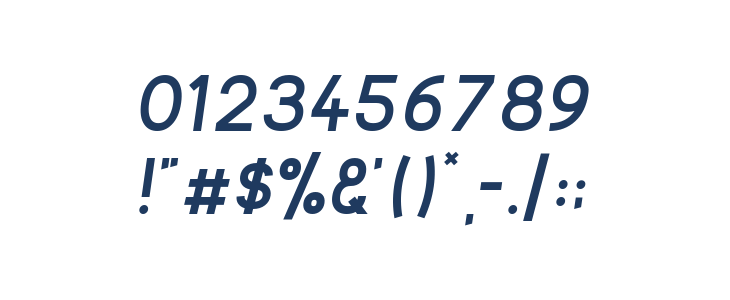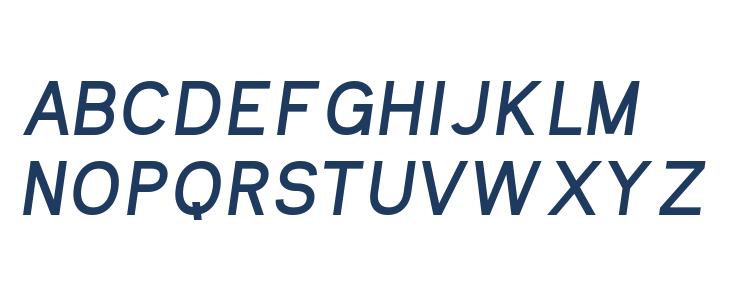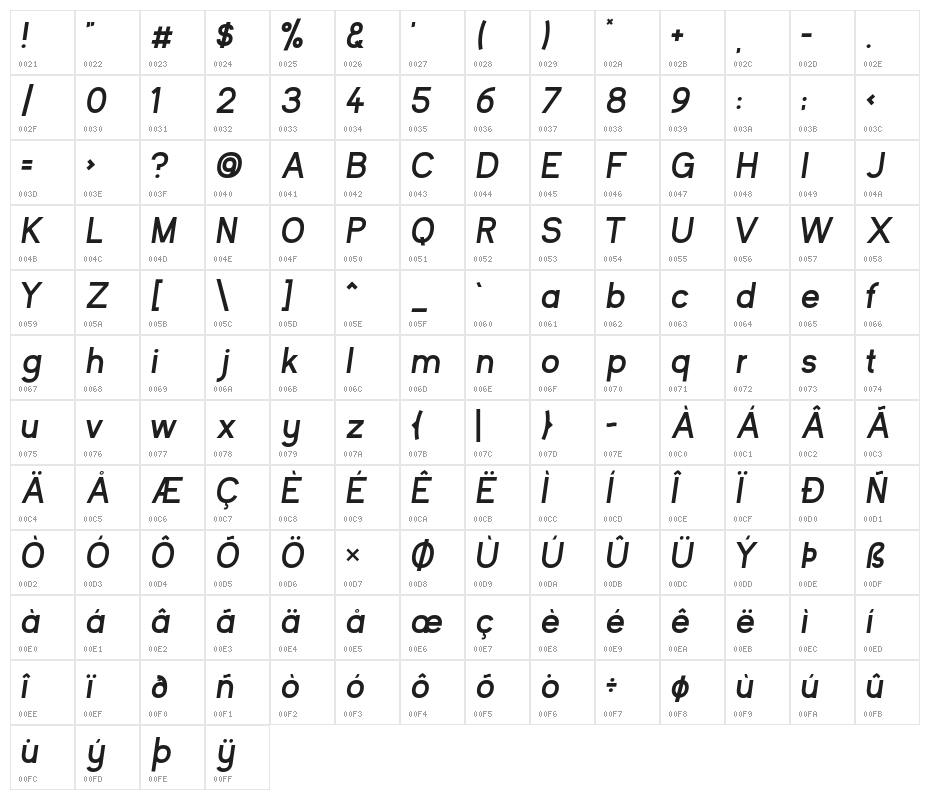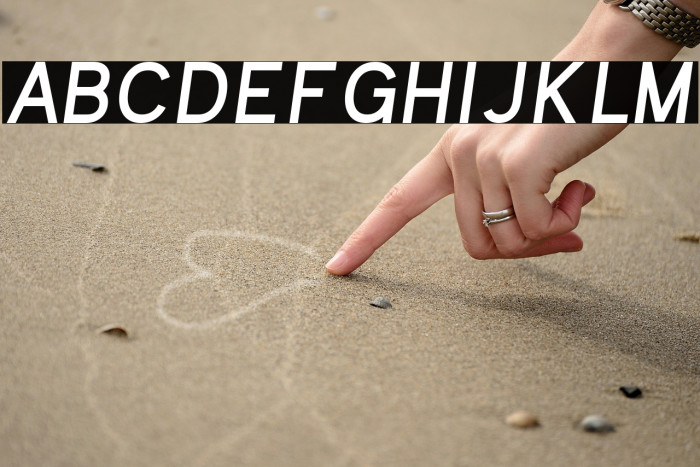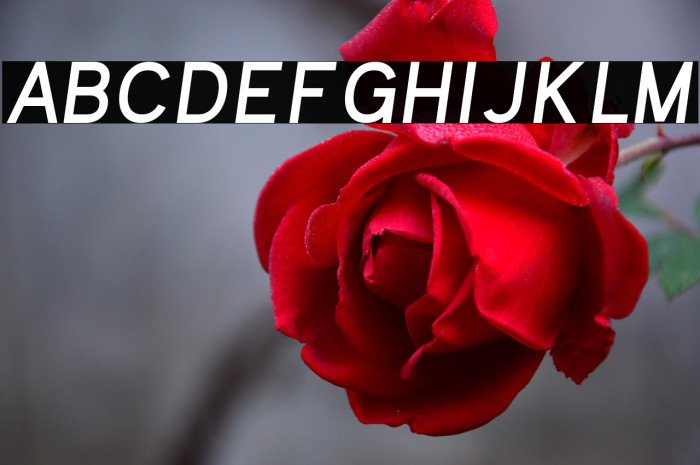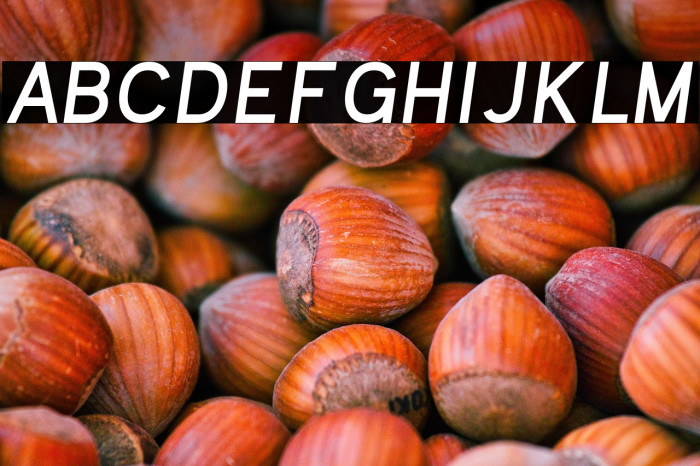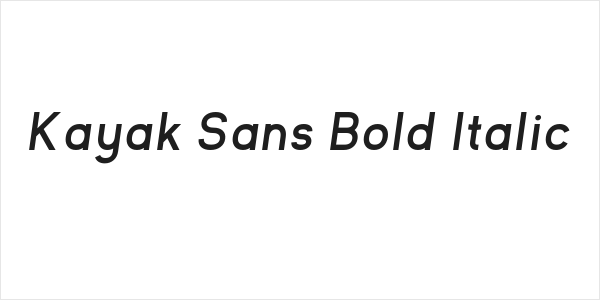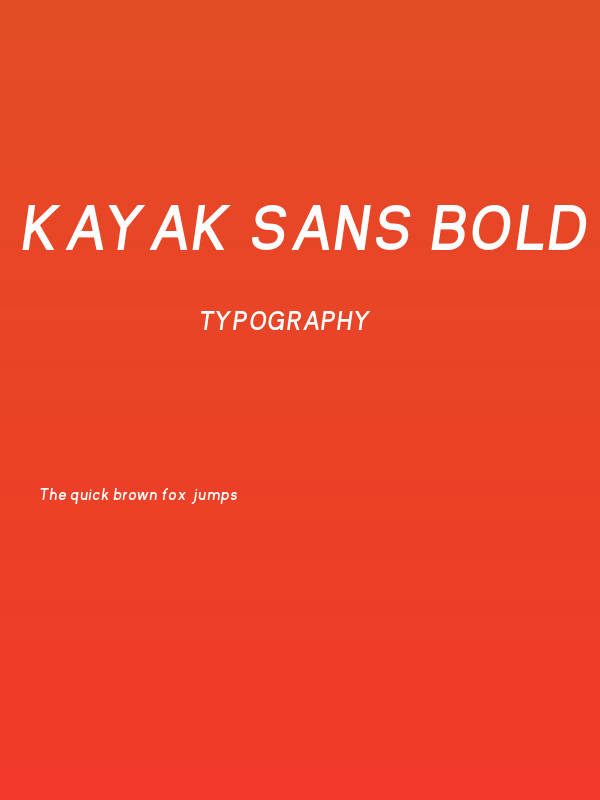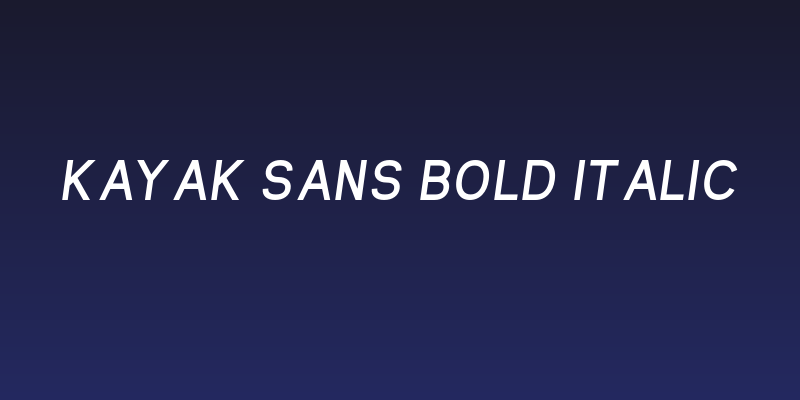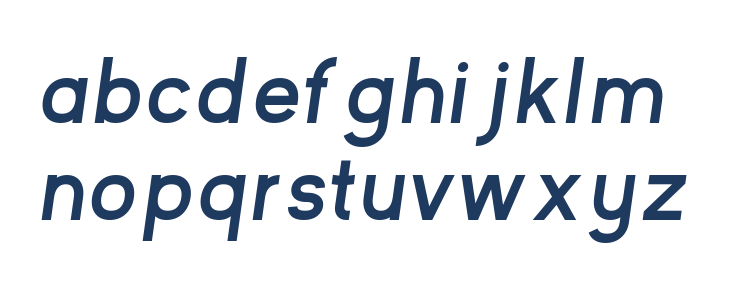
Kayak Sans Bold Italic Font
Kayak Sans Bold Italic Description
This font features a bold and italicized style, characterized by clean and smooth lines that give it a modern and sleek appearance. The sans-serif design ensures readability and simplicity, making it versatile for various applications. The letters are slightly slanted, adding a dynamic and forward-moving feel. The characters are evenly spaced, providing a balanced and harmonious look. The numbers and special characters maintain the same bold and italicized style, ensuring consistency throughout the typeface.
| Proposed Projects | Ideal for branding, advertising, and headlines where a modern and dynamic look is desired. |